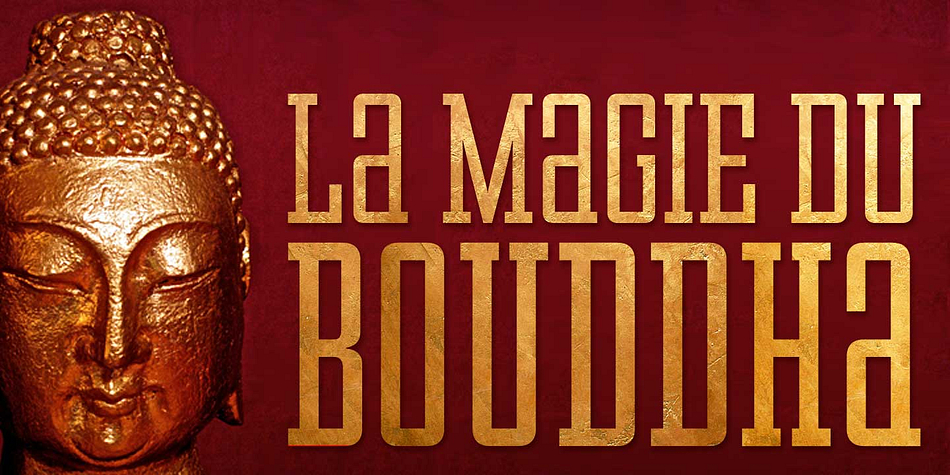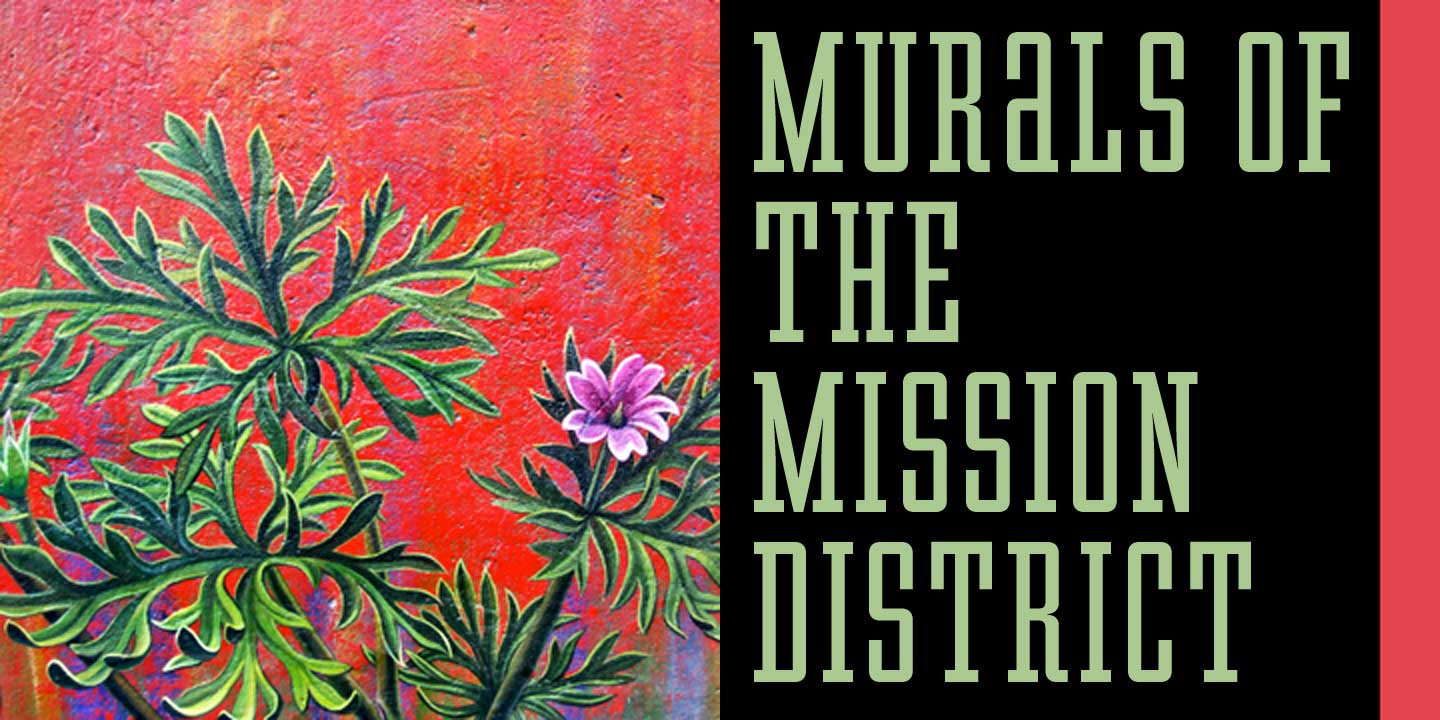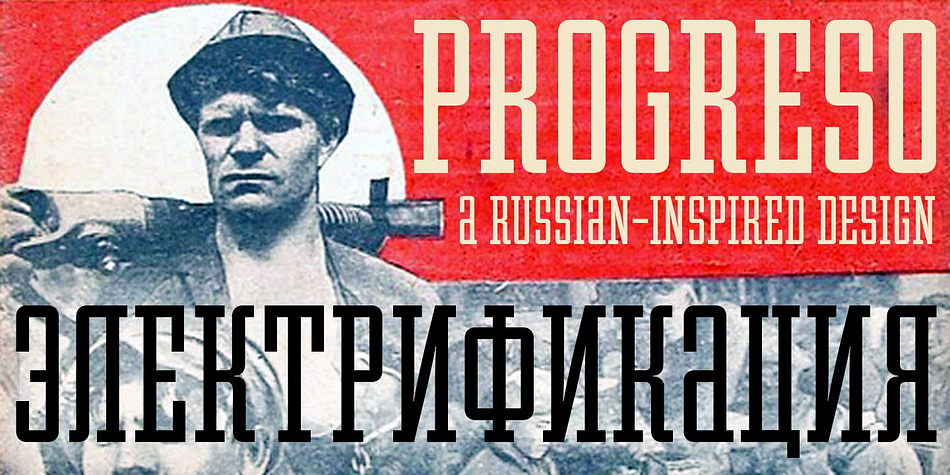
Progreso is a retro font family. This typeface has two styles and was published by CastleType.
Progreso is a unicase, condensed, serif gothic type design inspired by the hand-lettering on Russian posters from the 1920s. Supports most European languages including modern Greek and most languages that use the Cyrillic alphabet.